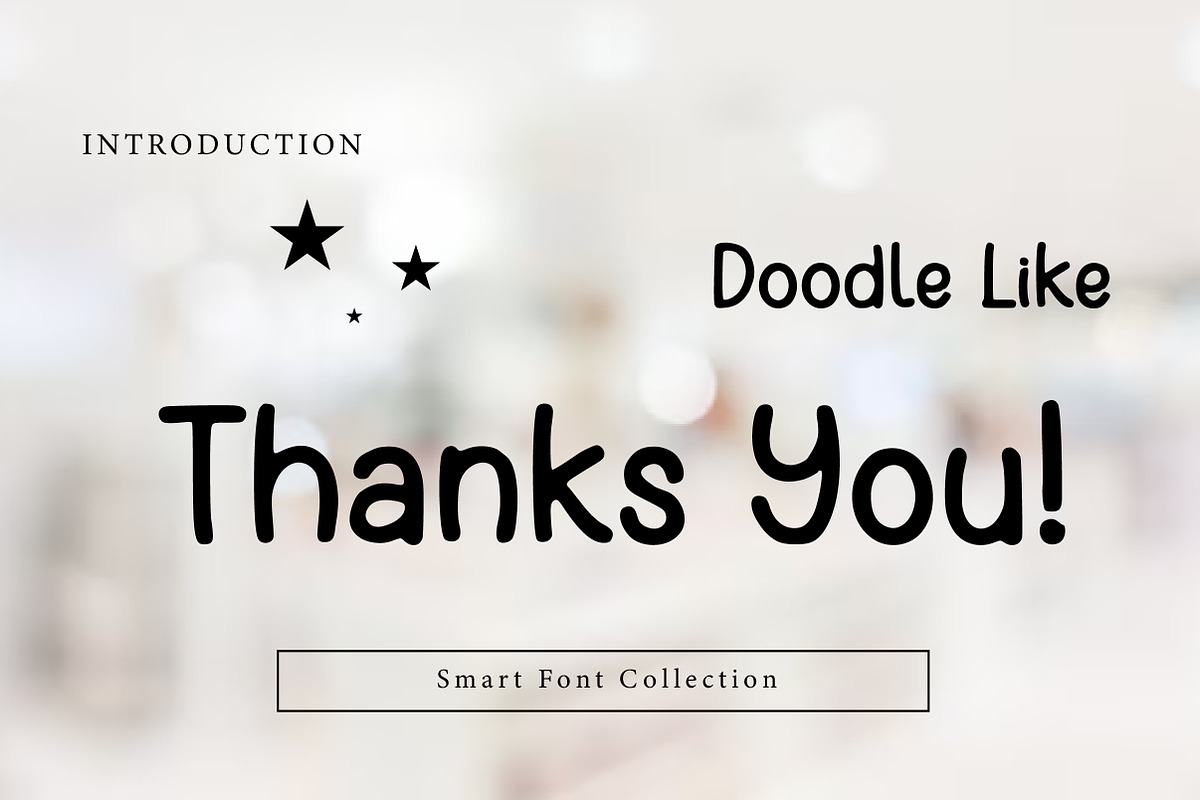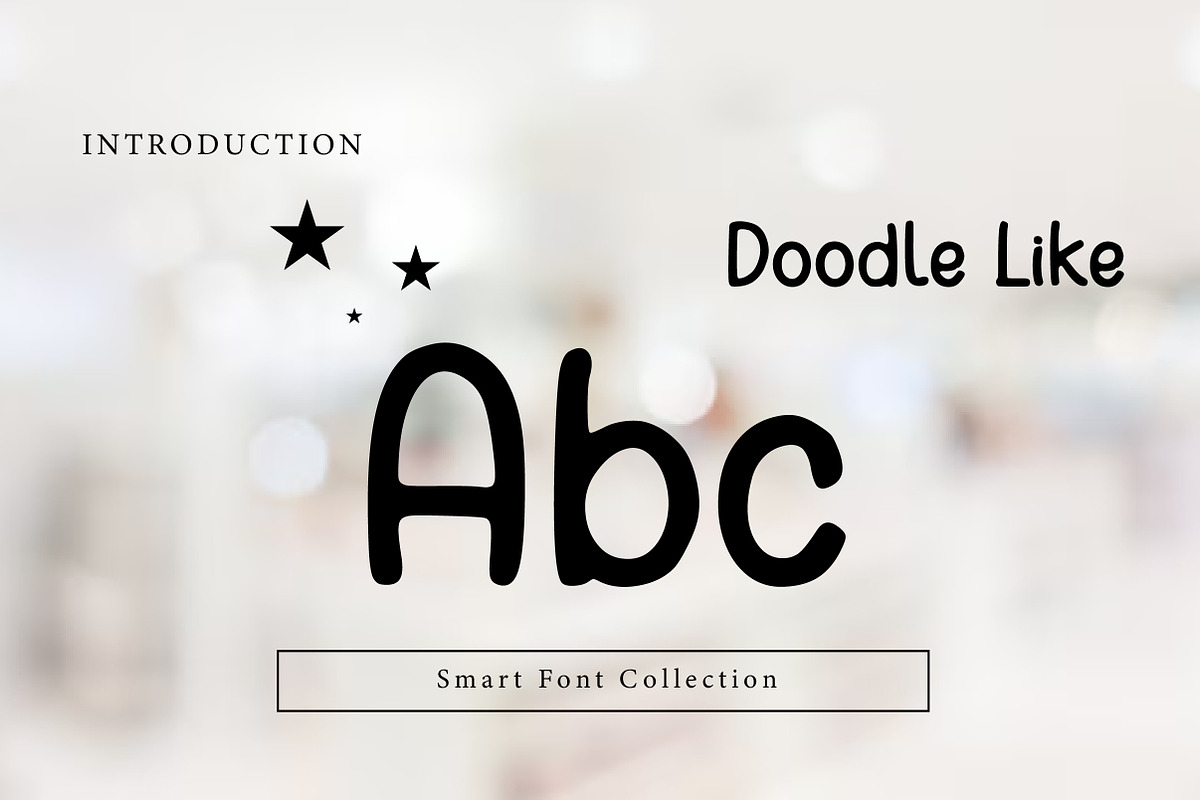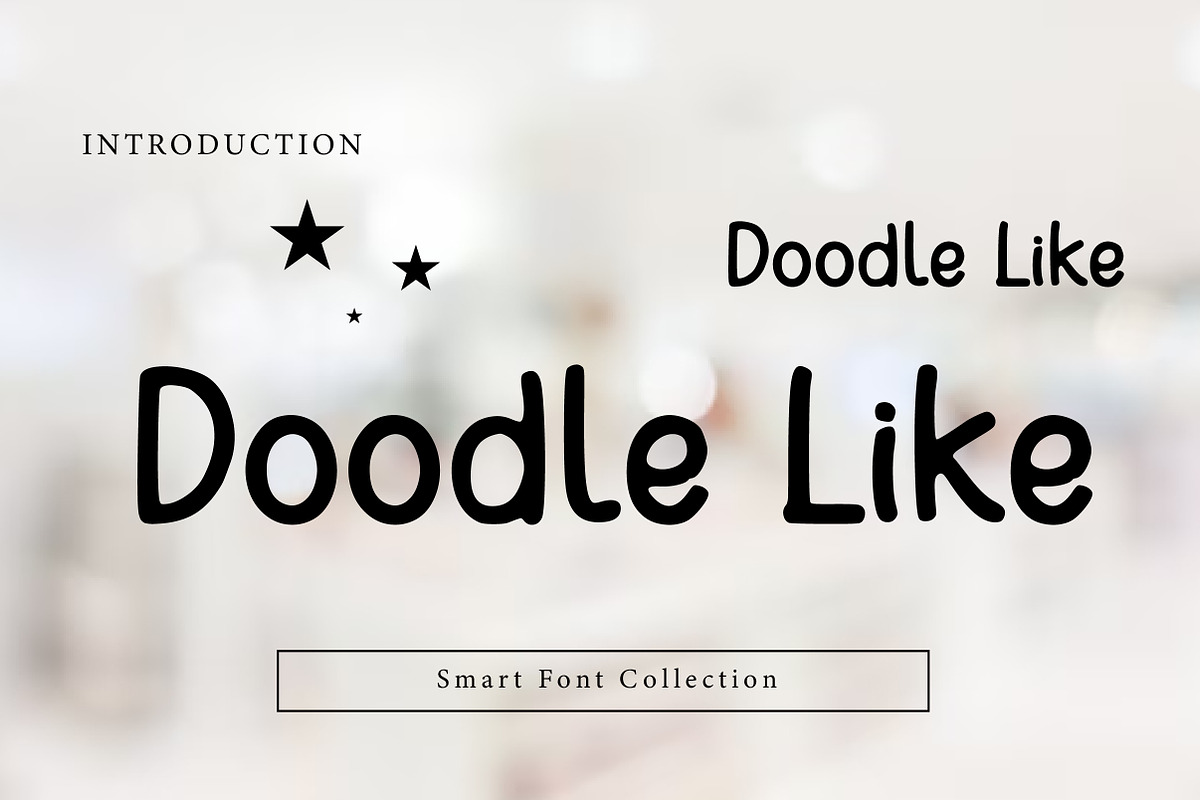
Doodle Like
Doodle Like is a fun, casual handwritten doodle display font with smooth strokes, rounded ends, and an easygoing hand-drawn personality. It feels playful, friendly, and imperfect in the best way—perfect for kids designs, stickers, notebooks, posters, social media graphics, packaging, labels, and cheerful branding. Doodle Like brings a warm, sketchbook vibe that keeps typography light and approachable.